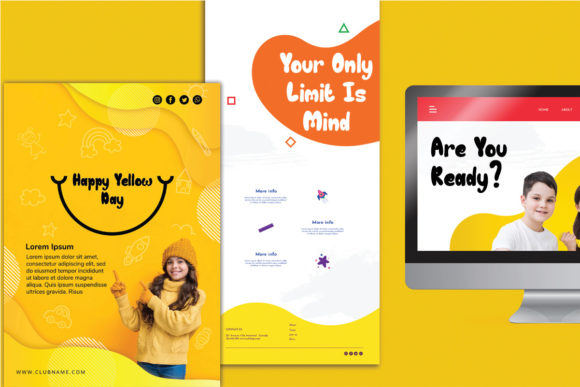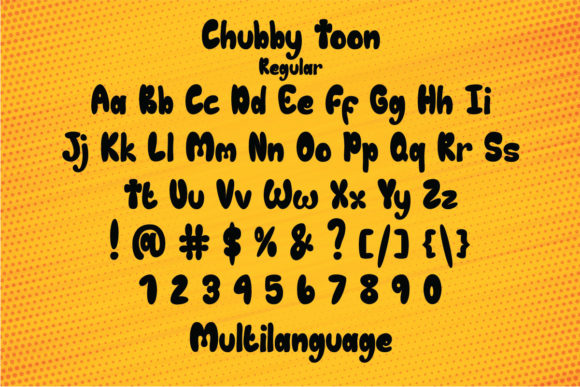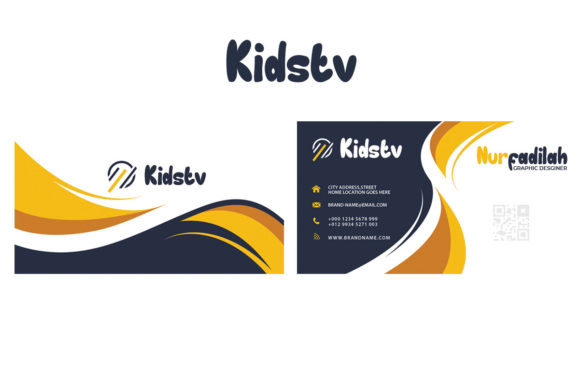
Introduction to Chubby Toon Font
Chubby Toon is a cute and bubbly display font.
It embodies playfulness and authenticity and is the perfect choice for any children activity or school project .